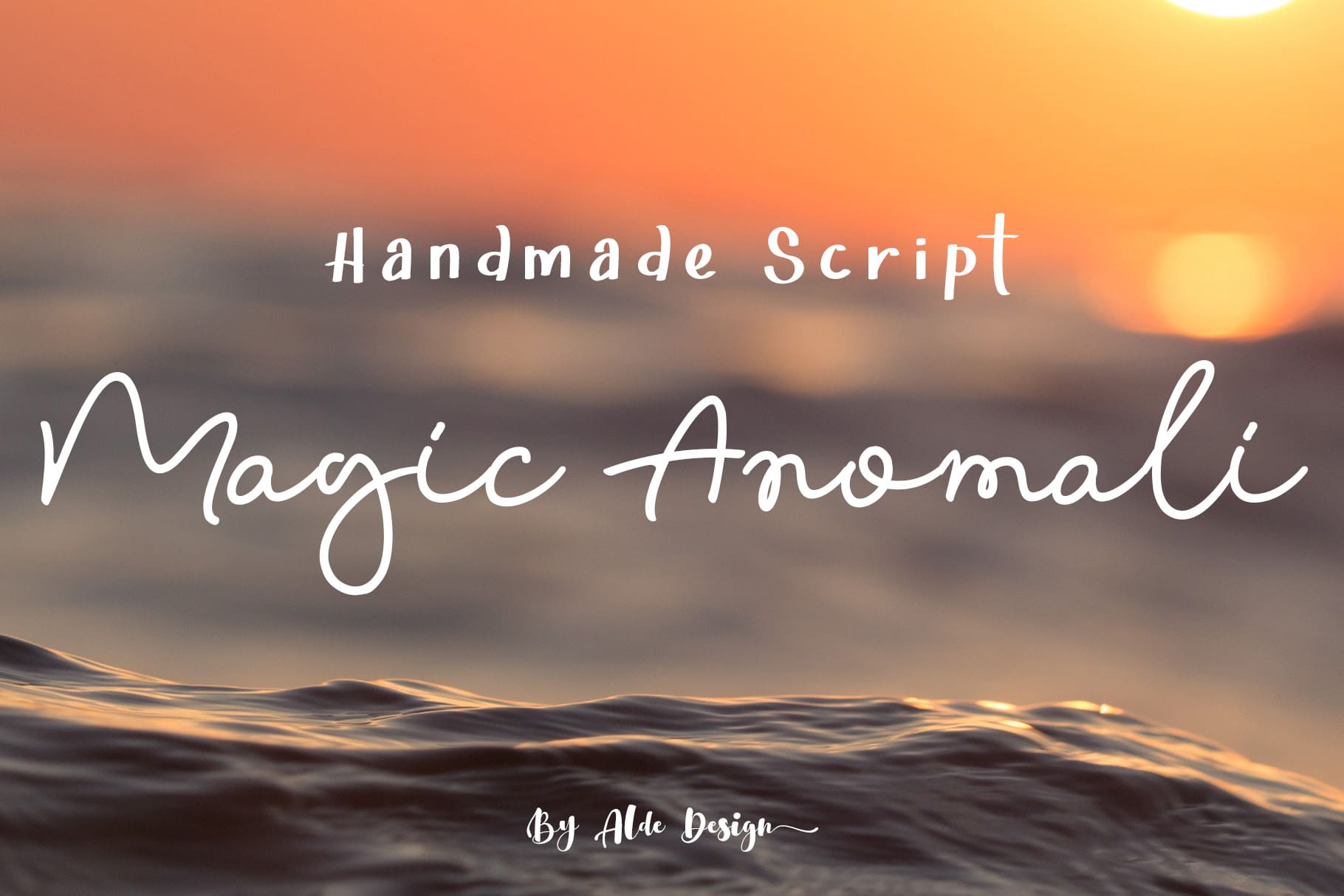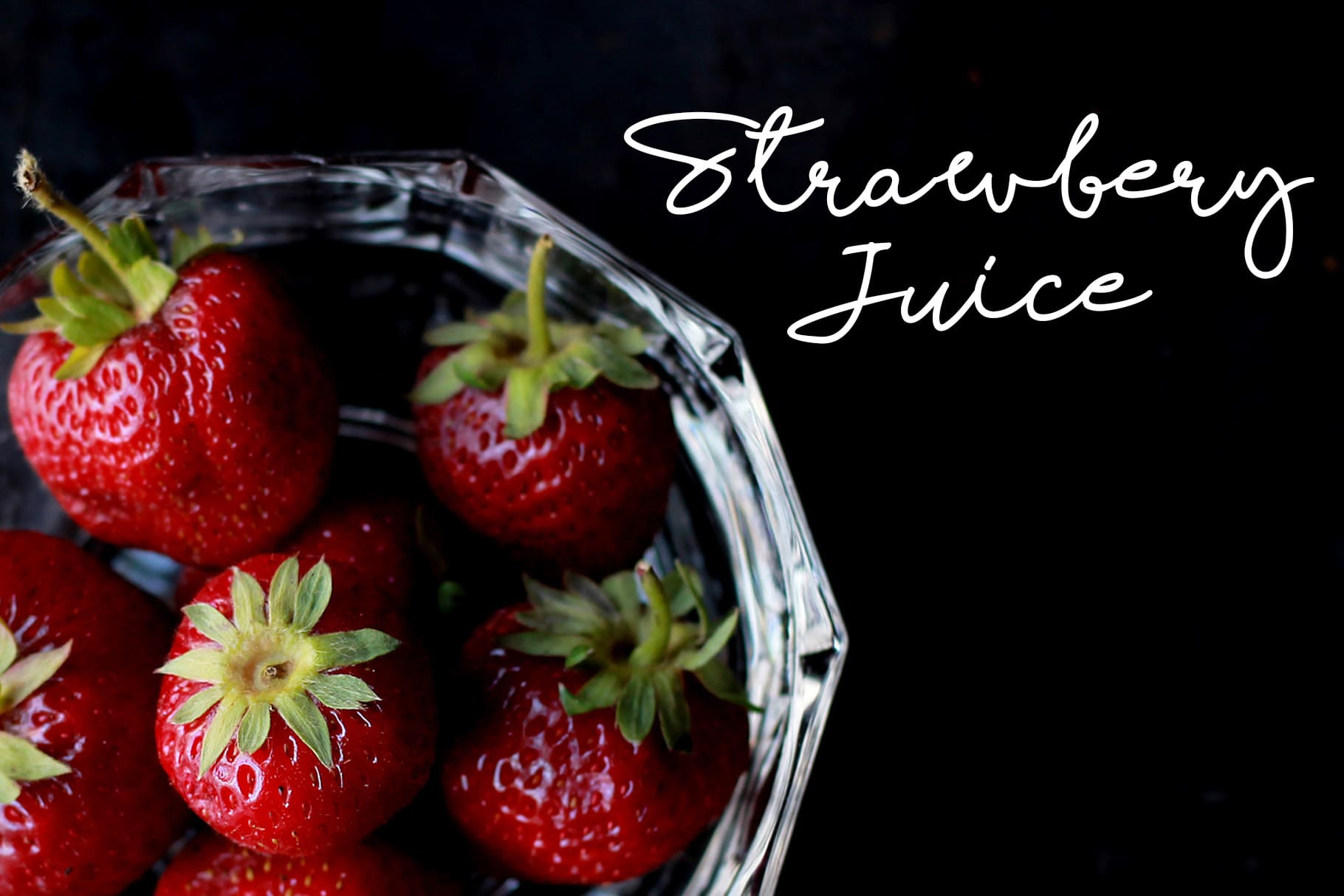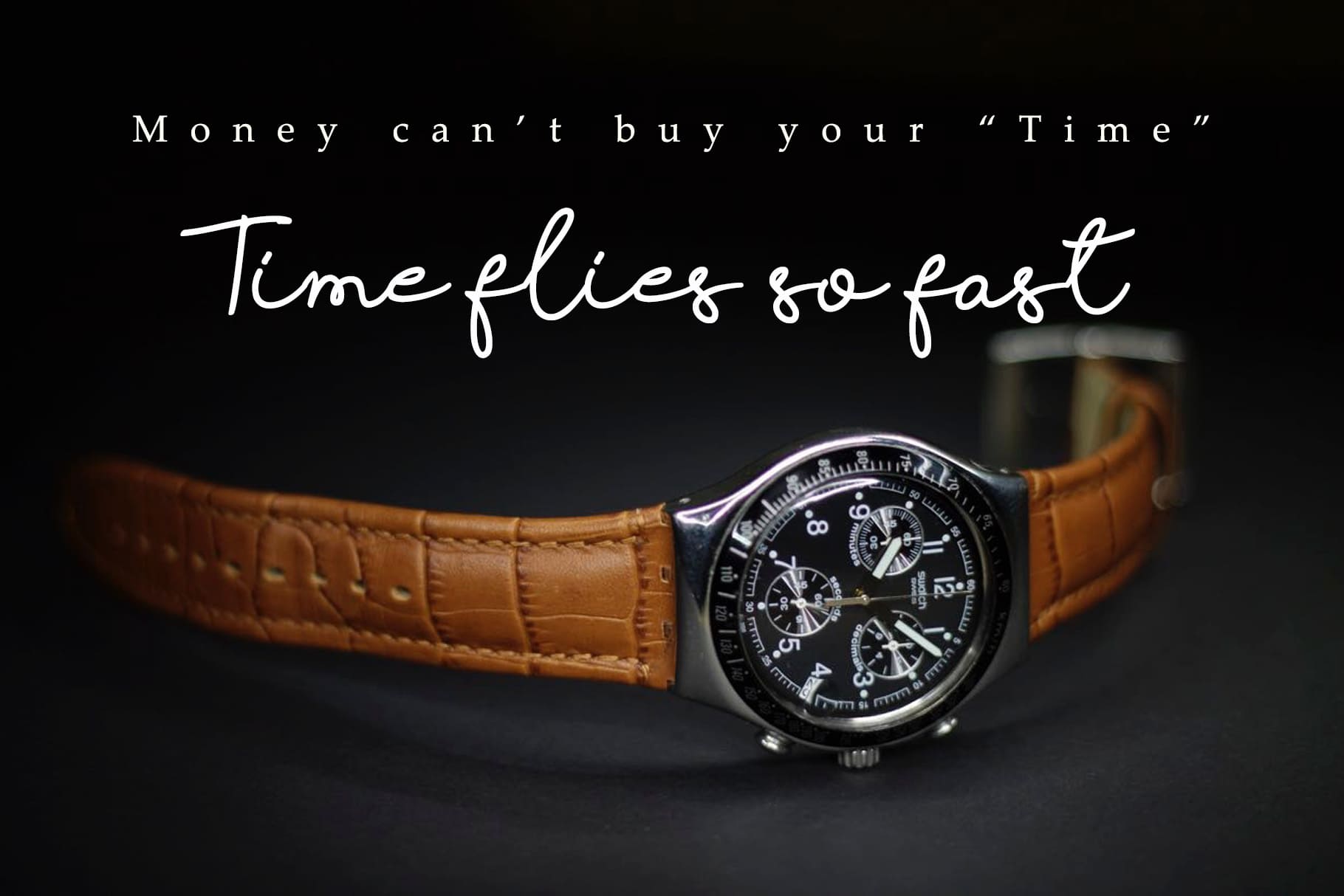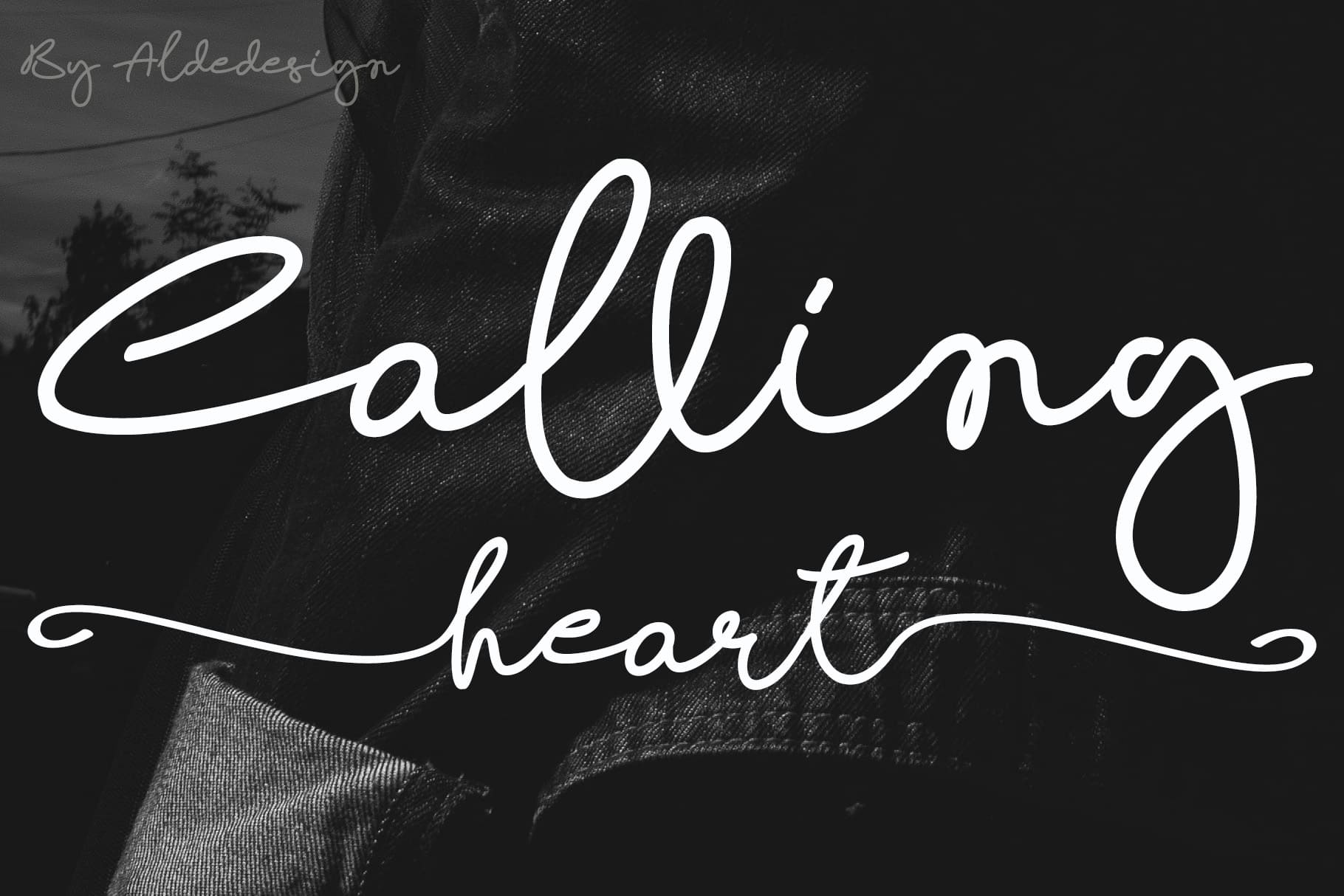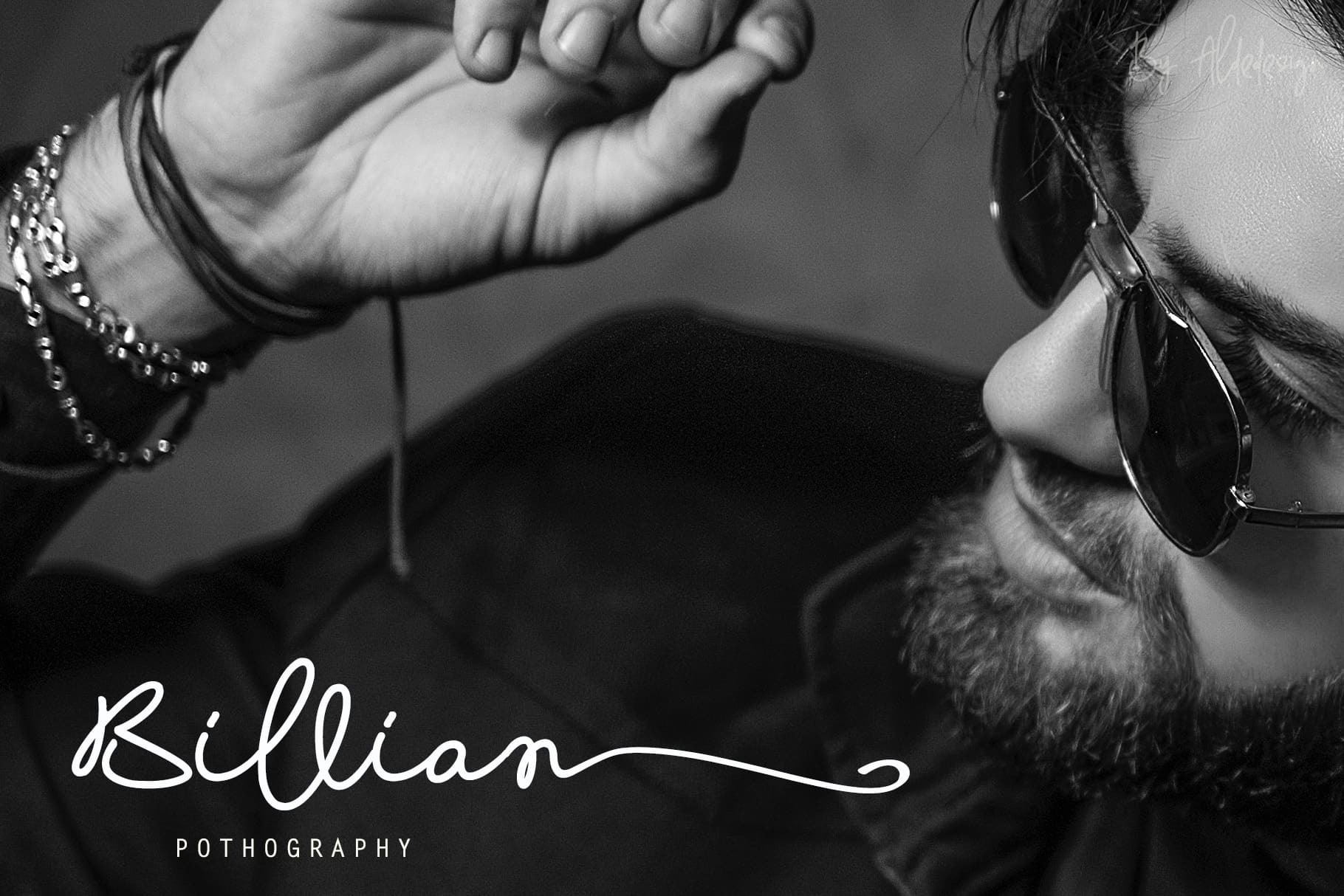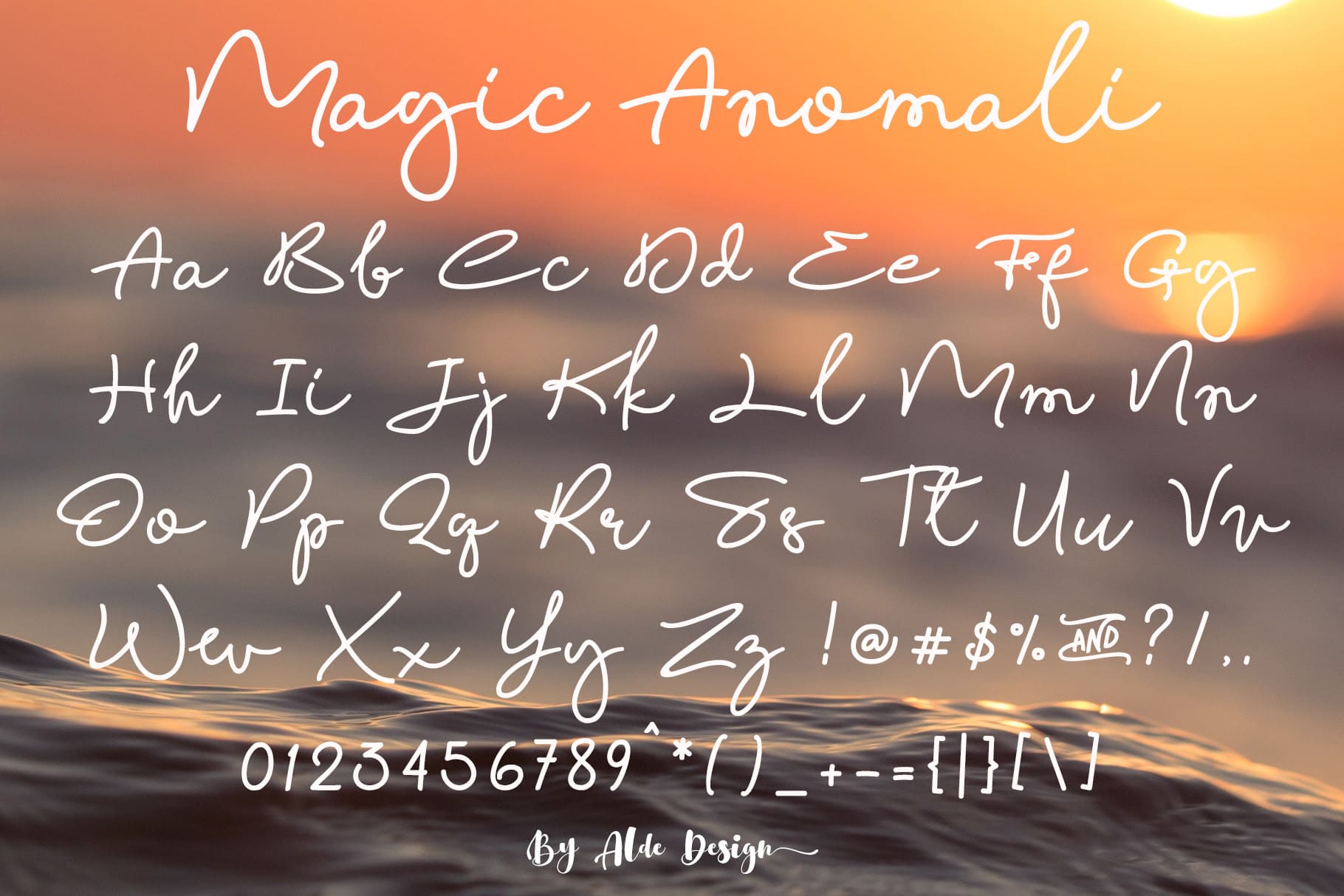
Magic Anomali is an easy to use font with an awesome, classy taste and natural, yet elegant touch.
AldeDesign was founded by Alde Joox in Indonesia, Yogyakarta. AldeDesign specializes in affordable scripts from very casual to very elegant. The design group is obsessed with product quality, beauty, and application. The fonts are perfectly suited for headlines, invitations, fashion, and packaging design.